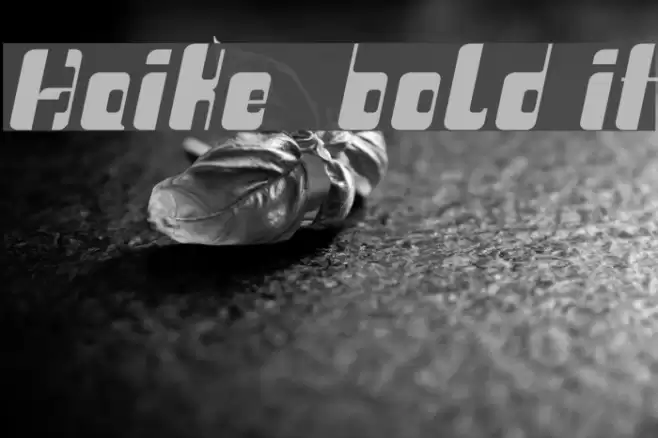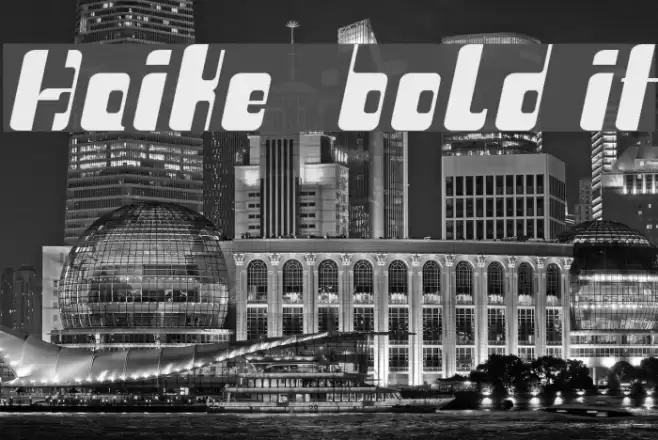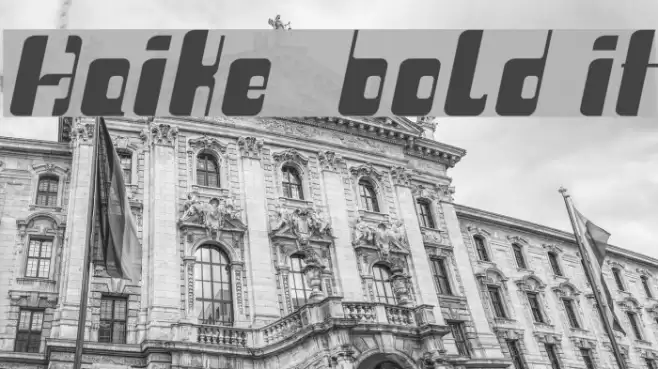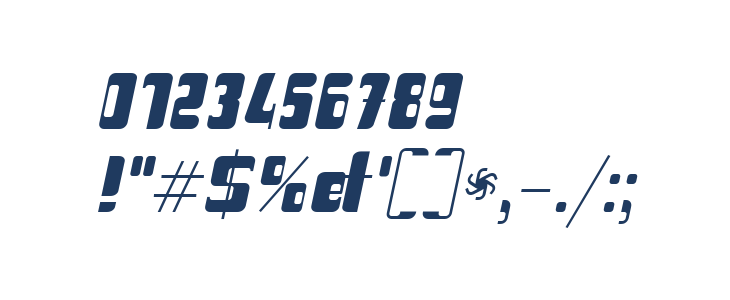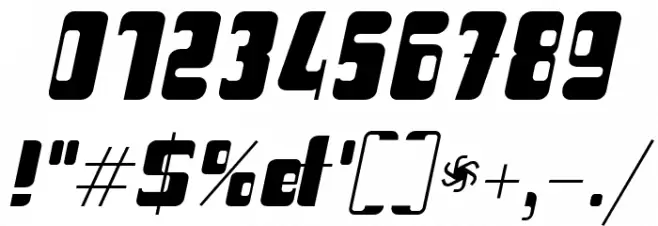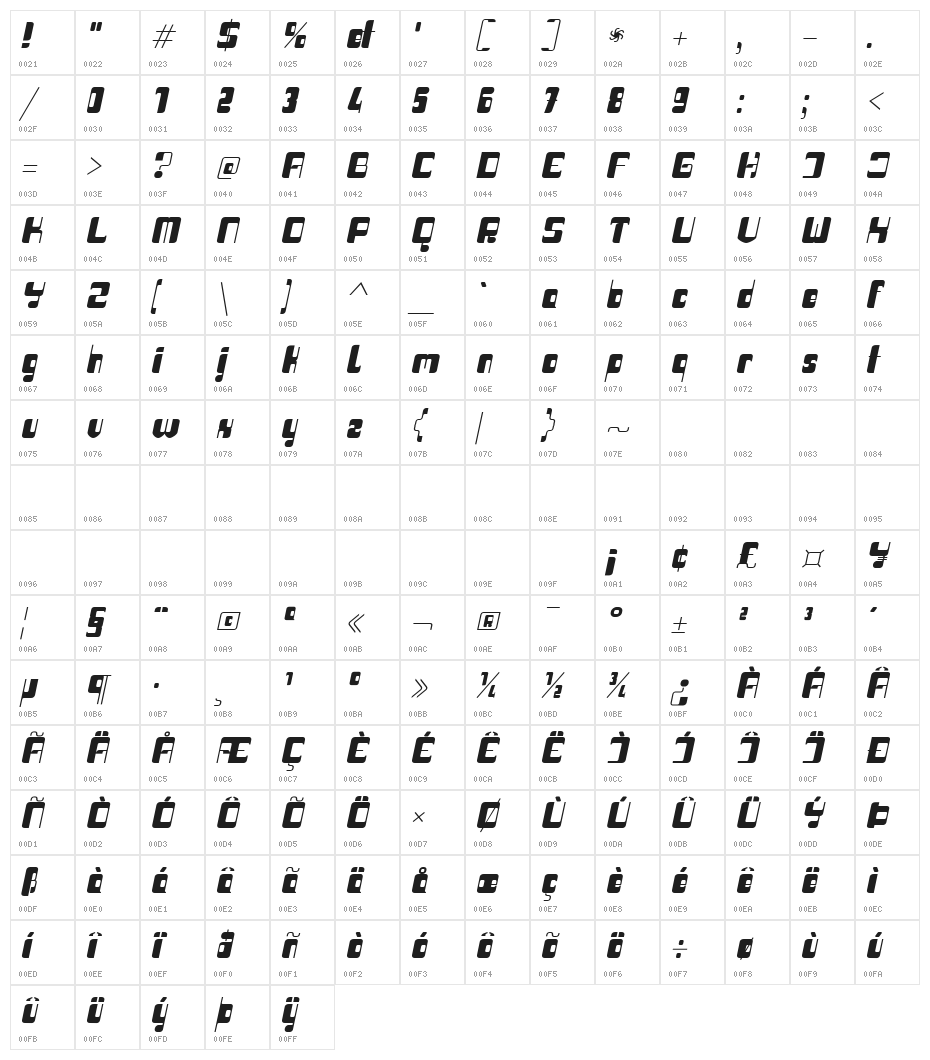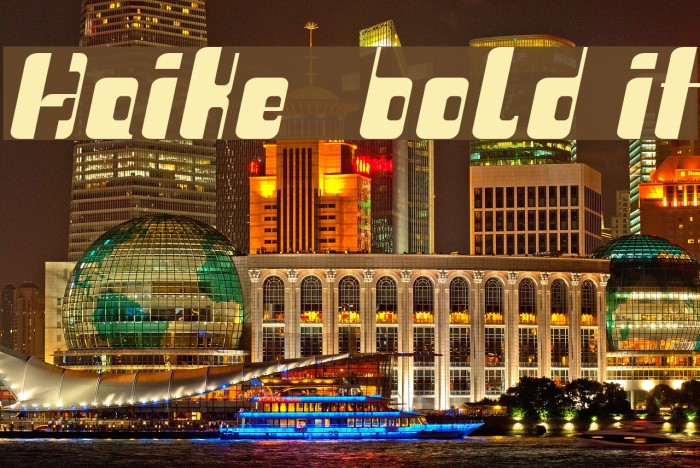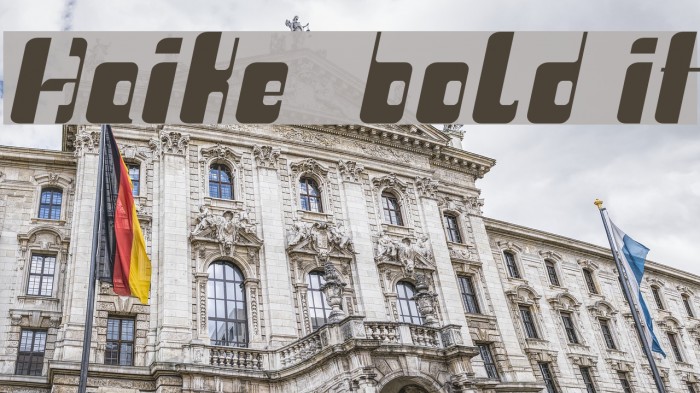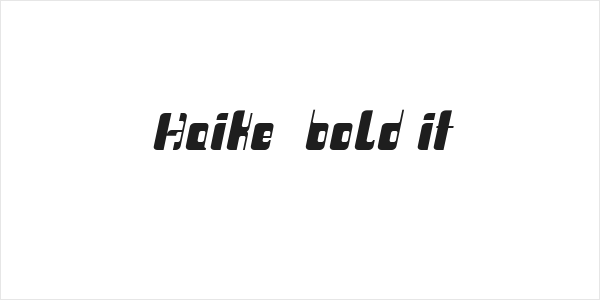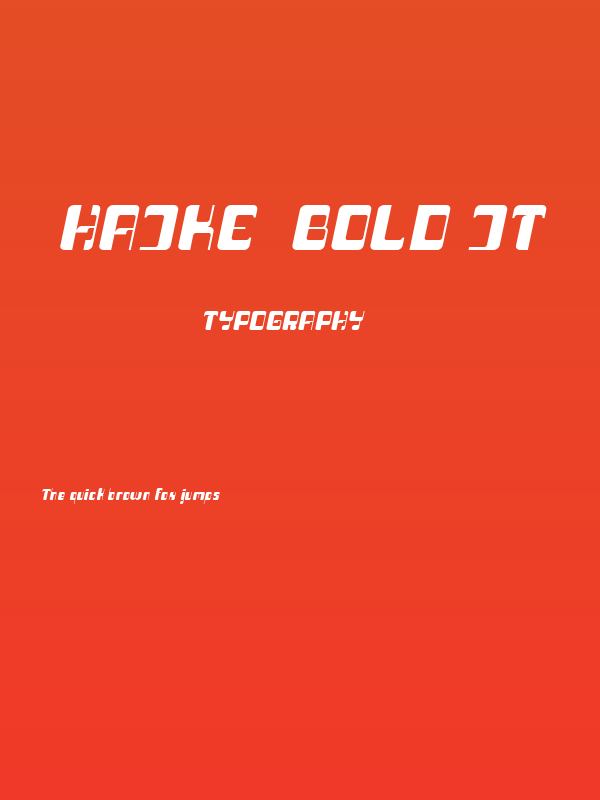
Haike bold it Font
This font features a bold, italicized style with a modern and futuristic aesthetic. The characters are designed with a unique slant, giving them a sense of motion and dynamism. The strokes are thick and consistent, providing a strong visual impact. The uppercase and lowercase letters maintain a cohesive look, with rounded edges and a slightly condensed form. The numerals and special characters follow the same design principles, ensuring uniformity across the typeface. This font's distinct appearance makes it suitable for projects that require a bold and contemporary look.
A bold, italicized font with a modern, dynamic style from Uncategorized fonts.
- Proposed Projects: Ideal for branding, posters, sports team logos, and futuristic designs.